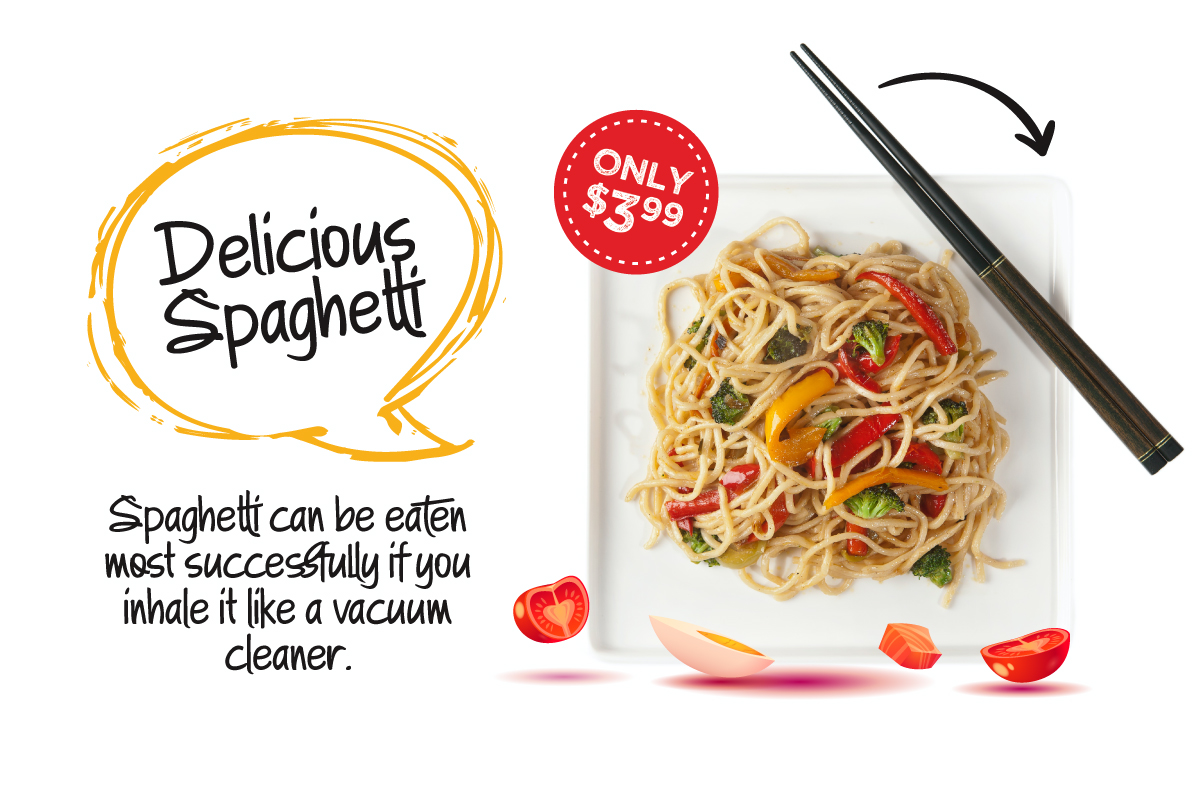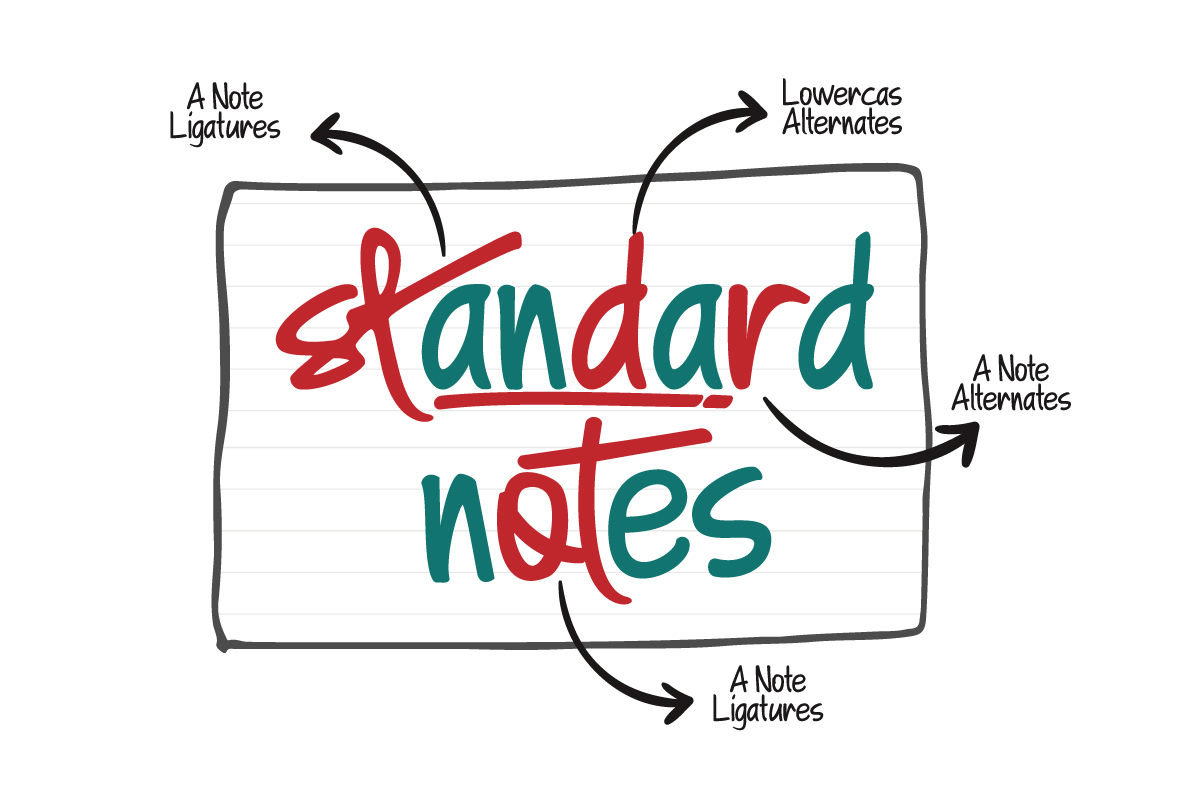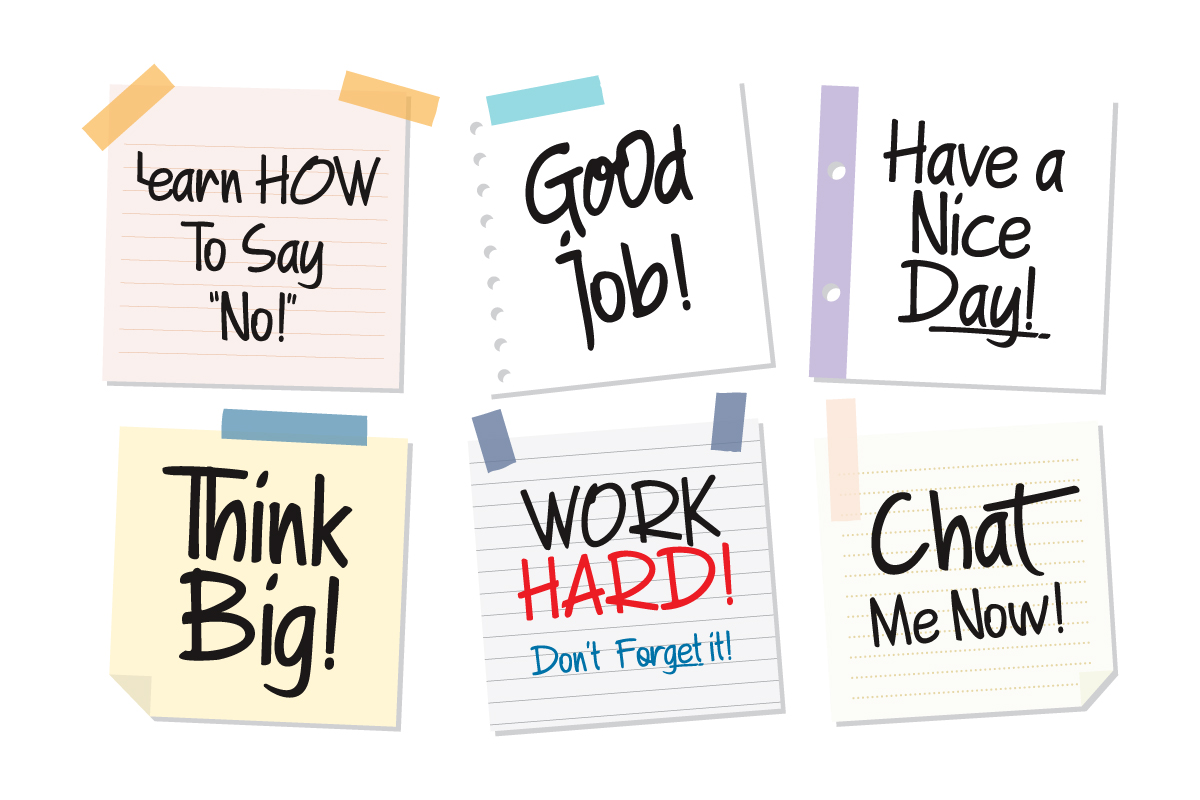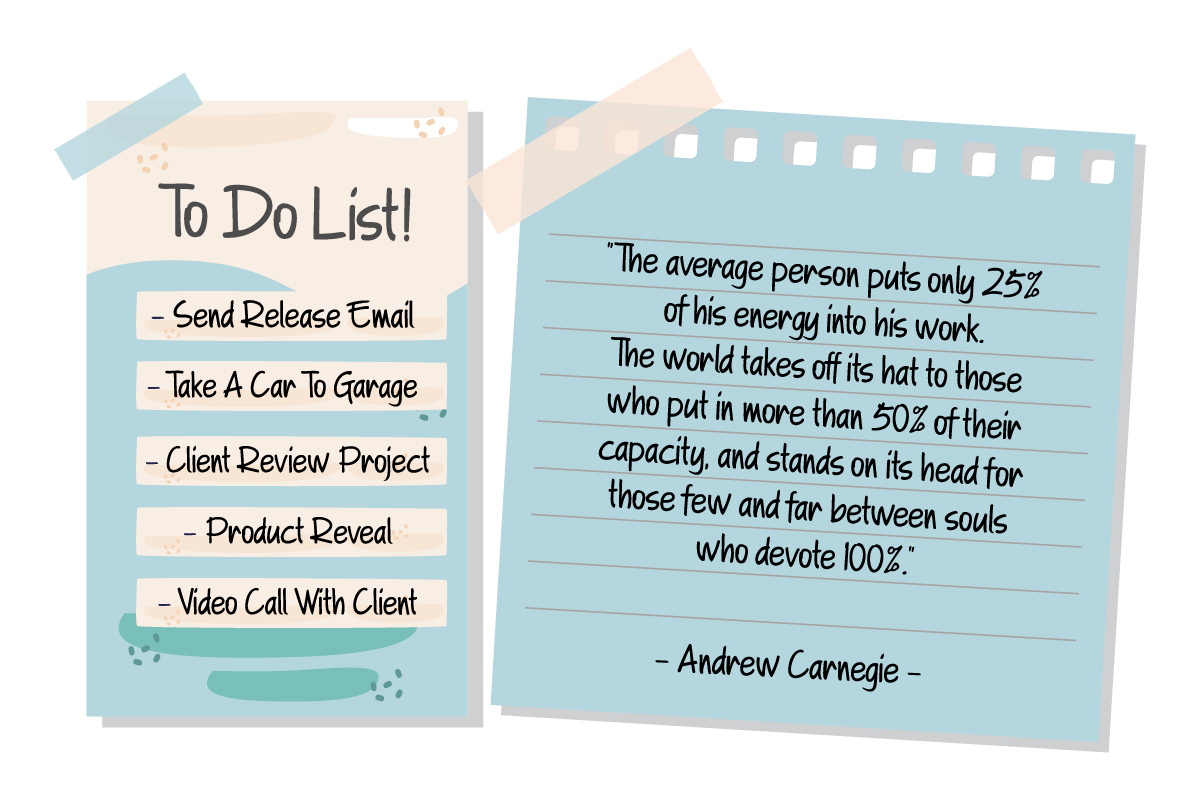
A Note Font
A Note Handwritten Font
This is a handwritten marker note font that\’s created with a natural and unique style. A Note Handwritten note font is suitable for various design graphics projects and can be used in any size. This Note font is also great for digital notes, quotes design, book cover, logotype, poster, food menu, t-shirt, scrapbooking, comic illustration, magazine titles, kids project and much more!
Features;
– Uppercase, Lowercase, Number, and Punctuation
– Special alternates and ligatures
– Mültîlíñgúãl Sùppört for; ä ö ü Ä Ö Ü ß ¿ ¡